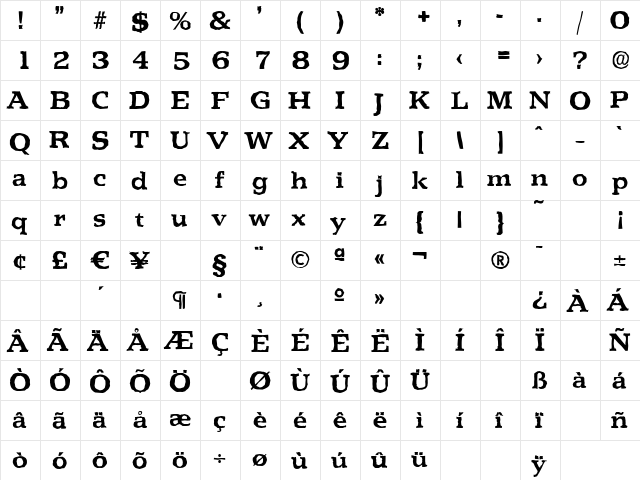
PenthouseAntique Bold
Design Context for PenthouseAntique Typeface
PenthouseAntique has the warm character of retro typography — evoking diners, record sleeves, and the golden age of print advertising. The heavy weight commands attention and anchors typographic hierarchies.
Perfect for vintage-inspired branding, retro packaging, nostalgia campaigns, and period-accurate editorial design.
Font Pairing: Combine PenthouseAntique with a simple slab or neutral sans — period-accurate companions reinforce the vintage feel without competing for attention.
Pro Tip: Use PenthouseAntique for headlines and pull quotes rather than body copy — its personality is best appreciated in short, focused bursts.